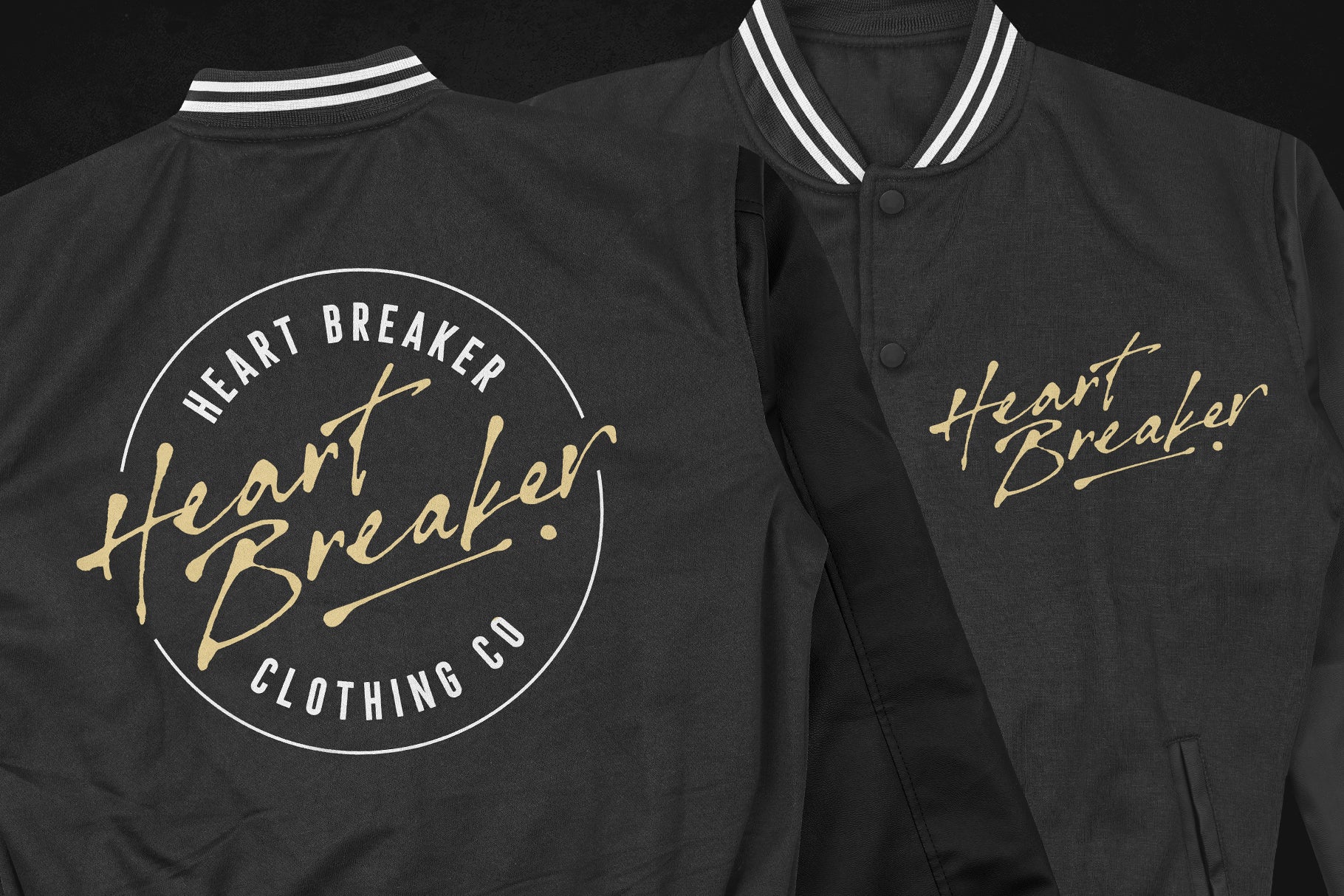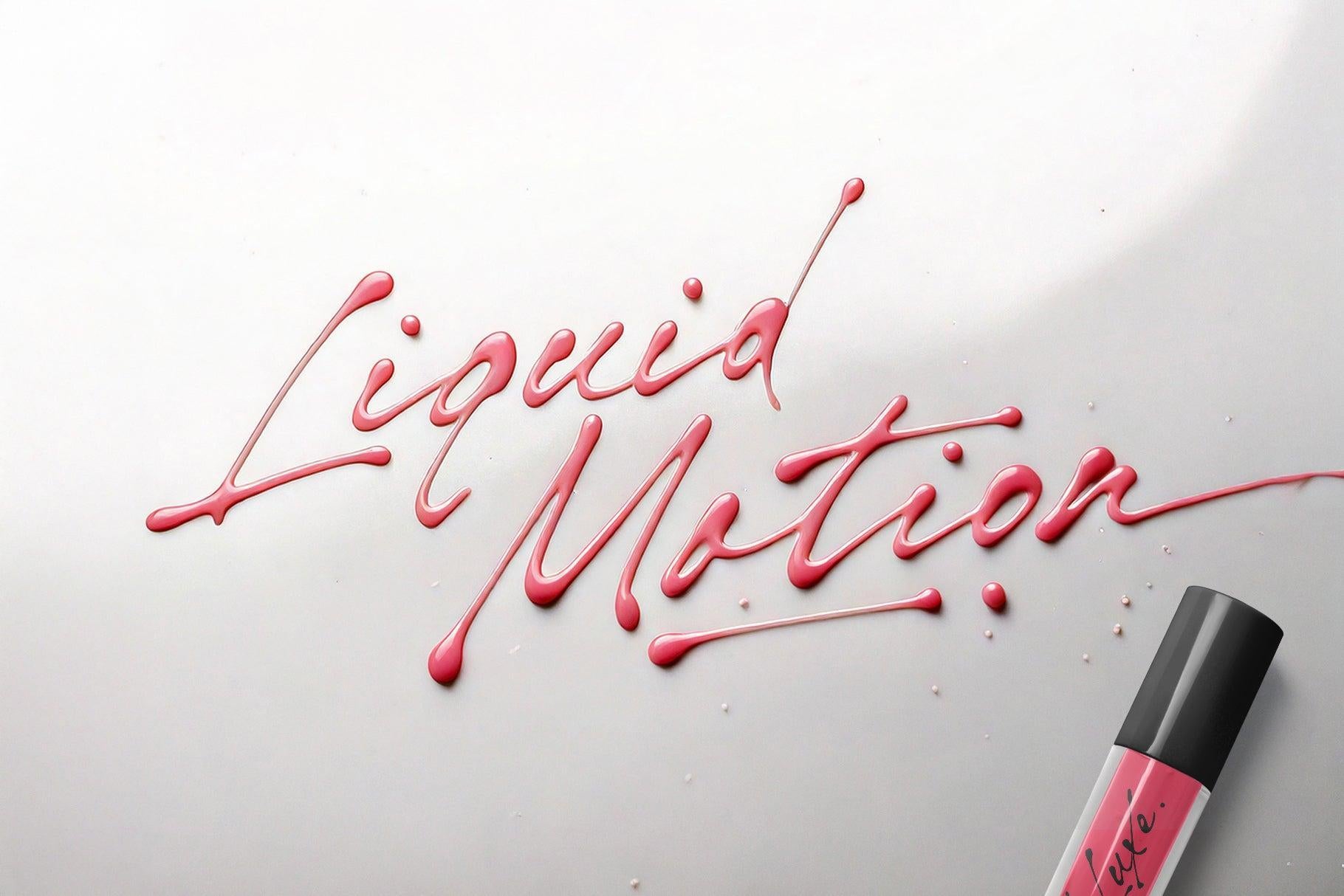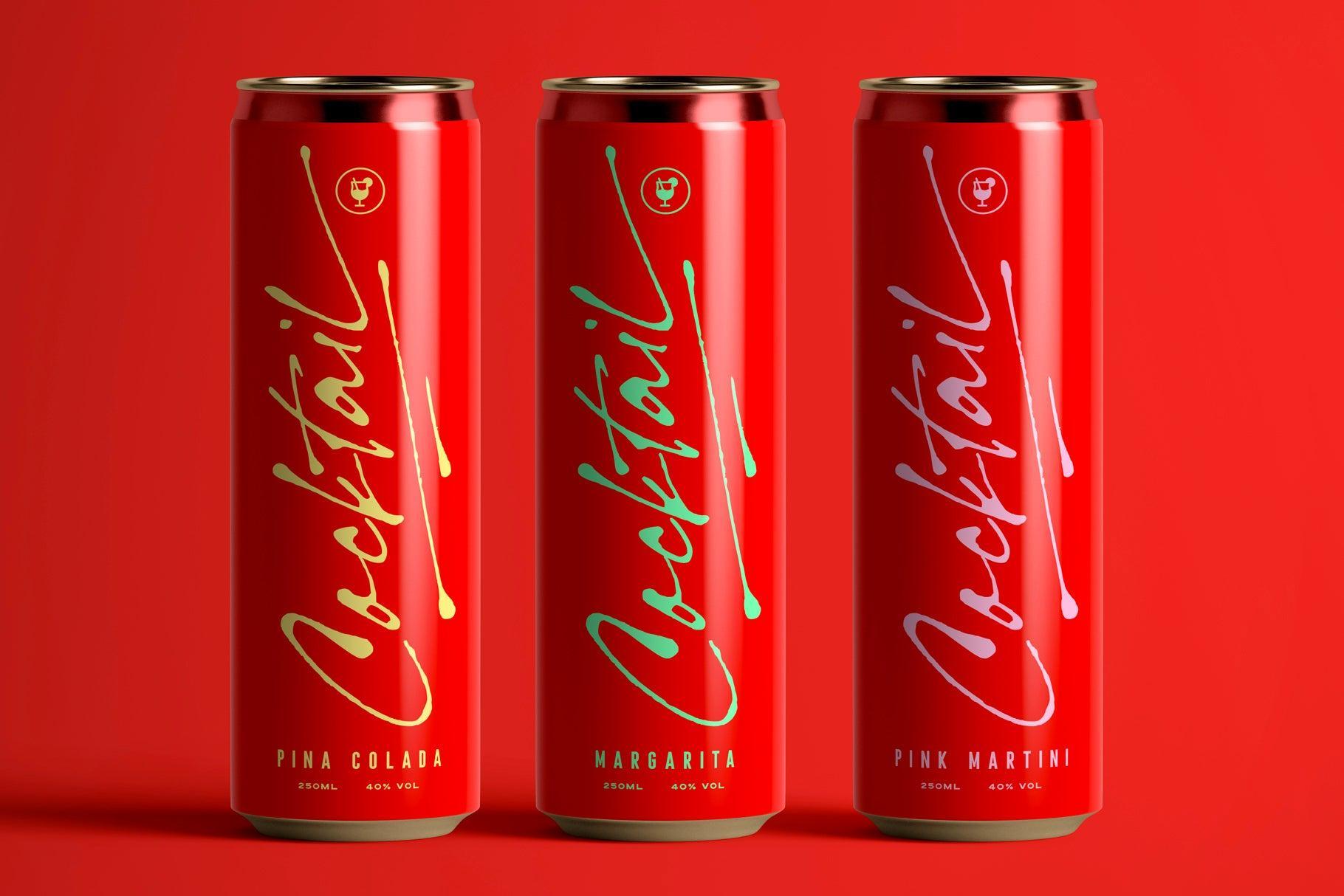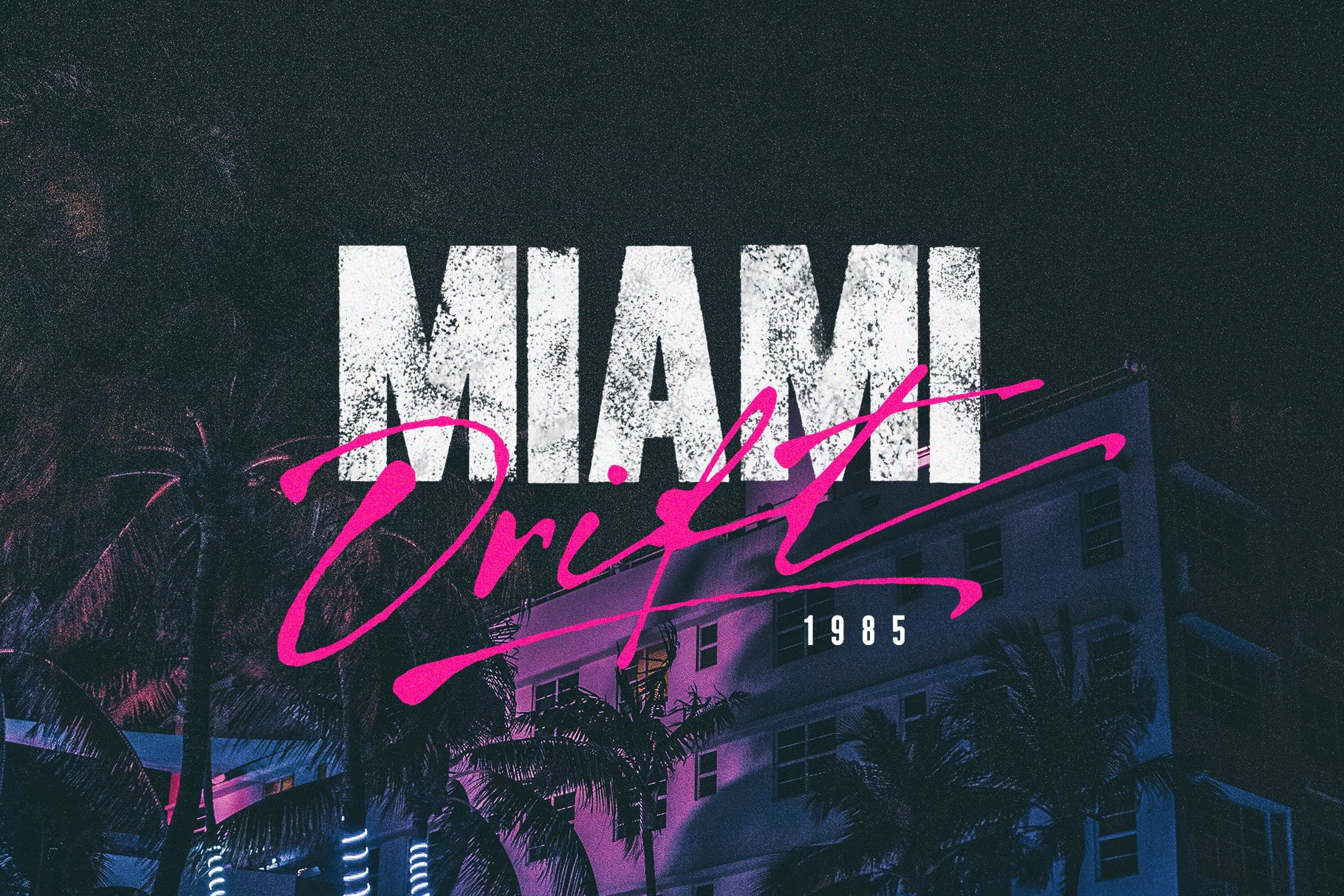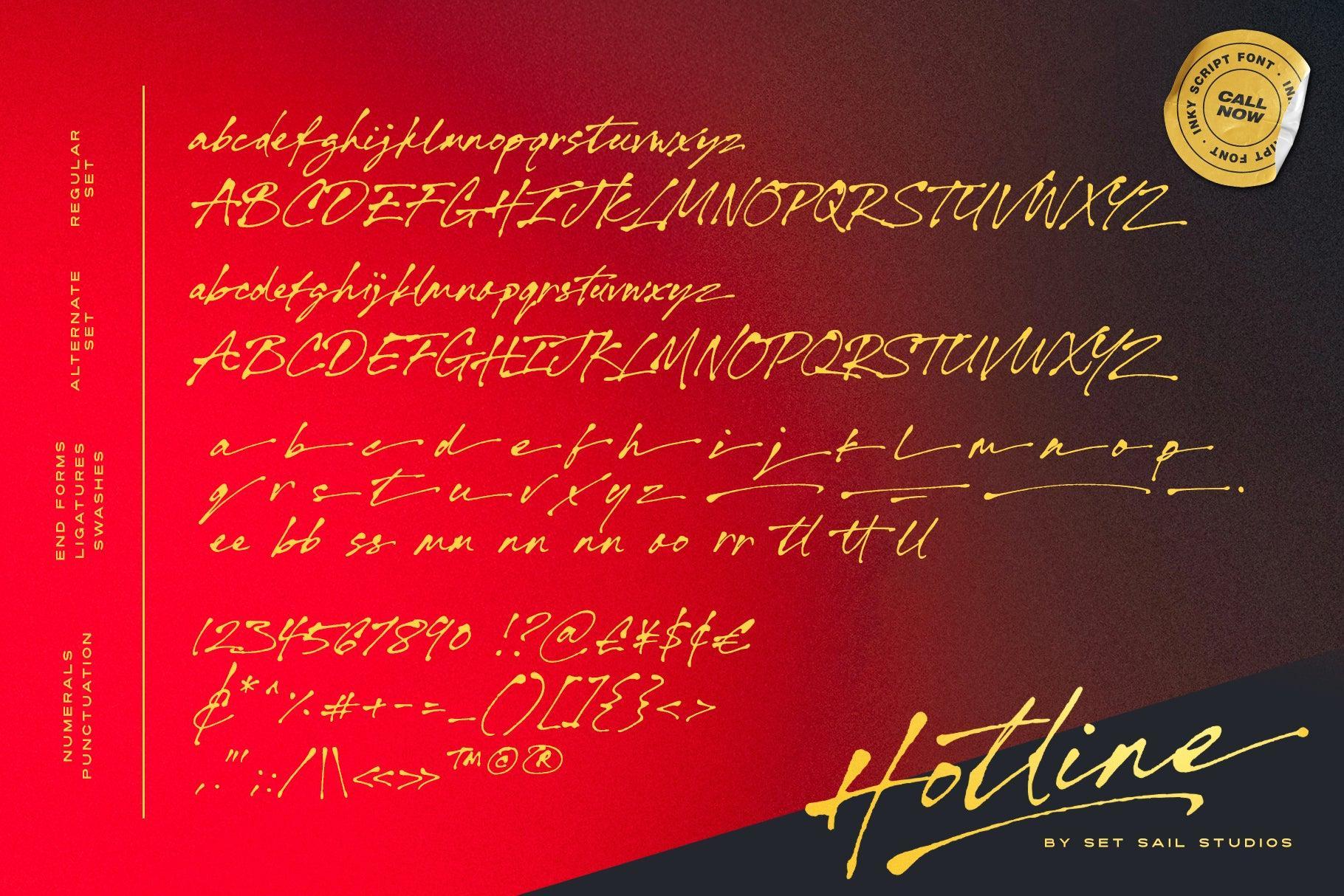
Hotline Script Font
Hotline Script Font is a hand-drawn script font featuring two full sets of upper and lowercase characters in Regular and Alternate variations, along with lowercase end-forms, four swashes, and eleven ligatures for improved text flow. It supports multiple languages, making it a versatile choice for various design projects.